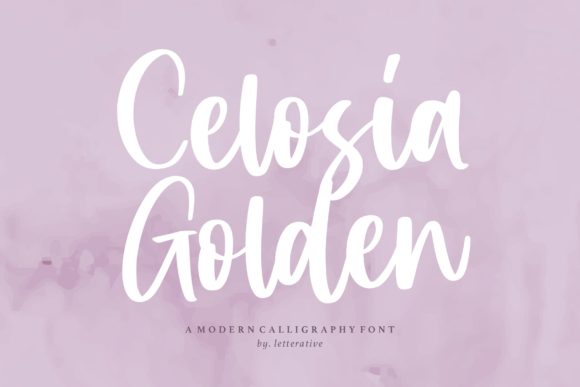
Celosia Golden Font: Elevate Your Designs with Elegance and Sophistication
In the world of typography, few fonts manage to capture the essence of elegance and sophistication as effectively as the Celosia Golden Font. This delicate, elegant, and flowing handwritten font has been making waves in the design community, and for good reason. With its beautiful and well-balanced characters, Celosia Golden is the perfect addition to any design project, capable of bringing a touch of luxury and refinement to even the most creative of ideas.
The Characteristics of Celosia Golden Font
Celosia Golden is a true masterpiece of typographic design. Its flowing lines and delicate curves give it a sense of movement and fluidity, making it perfect for designs that require a touch of elegance and sophistication. The font’s characters are beautifully balanced, with a perfect harmony of thick and thin lines that create a sense of visual flow.
One of the standout features of Celosia Golden is its versatility. This font is capable of adapting to a wide range of design styles, from classic and traditional to modern and contemporary. Whether you’re working on a luxury brand identity, a high-end product packaging, or a elegant wedding invitation, Celosia Golden is sure to make your design stand out.
The Benefits of Using Celosia Golden Font
So, why should you choose Celosia Golden for your next design project? For starters, this font is incredibly versatile, making it perfect for a wide range of applications. Here are just a few benefits of using Celosia Golden:
- Elegance and Sophistication: Celosia Golden adds a touch of luxury and refinement to any design, making it perfect for high-end brands and products.
- Versatility: This font is capable of adapting to a wide range of design styles, from classic and traditional to modern and contemporary.
- Readability: Celosia Golden is incredibly easy to read, even at small sizes, making it perfect for body text and captions.
- Uniqueness: With its delicate and flowing lines, Celosia Golden is sure to make your design stand out from the crowd.
How to Use Celosia Golden Font in Your Designs
Using Celosia Golden in your designs is incredibly easy. Here are a few tips to get you started:
- Pair it with a bold font: Celosia Golden pairs perfectly with bold and sans-serif fonts, creating a beautiful contrast that adds visual interest to your design.
- Use it for headings and titles: Celosia Golden is perfect for headings and titles, adding a touch of elegance and sophistication to your design.
- Add it to your branding: Use Celosia Golden as part of your brand identity, creating a consistent and cohesive look across all your marketing materials.
Celosia Golden Font: The Perfect Choice for Creative Projects
Celosia Golden is more than just a font – it’s a design statement. With its delicate and flowing lines, this font is capable of bringing a touch of elegance and sophistication to even the most creative of ideas. Whether you’re working on a graphic design project, a branding campaign, or a personal creative endeavor, Celosia Golden is the perfect choice.
So why settle for a boring and generic font when you can elevate your designs with the elegance and sophistication of Celosia Golden? With its versatility, readability, and uniqueness, this font is sure to make your design stand out from the crowd.
In conclusion, Celosia Golden Font is a true gem in the world of typography. With its delicate and flowing lines, beautiful and well-balanced characters, and incredible versatility, this font is capable of bringing a touch of elegance and sophistication to even the most creative of ideas. Whether you’re a designer, a brand owner, or simply someone who appreciates beautiful typography, Celosia Golden is definitely worth checking out.
Specification
- Font Type: Handwritten
- Font Style: Delicate, Elegant, and Flowing
- Characters: Beautiful and well-balanced
- Use Cases: Graphic design, Branding, Packaging, Wedding invitations, and more
- Q: What type of font is Celosia Golden?
A: Celosia Golden is a handwritten font. - Q: Is Celosia Golden suitable for body text?